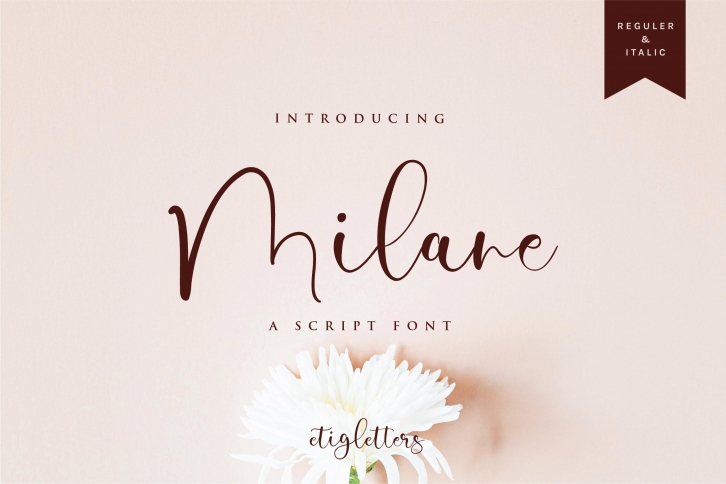
Milane Script is a trendy and unique font with an authentic style. It was designed by Etigletters and it's a great choice for creative people who need such a font. It was released on August 26, 2020 and the file size is 13.86 MB. Milane Script will add an organic vibe to any design idea!